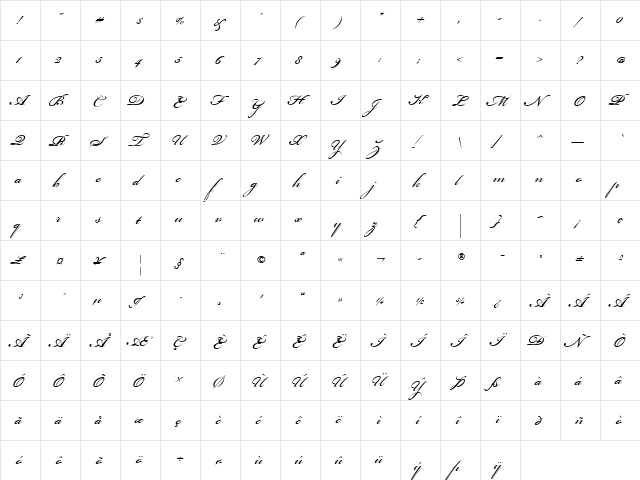
Bickham Script One Regular
| Designer | Gophmann A.L. |
Design Context for Bickham Script One Typeface
Bickham Script One brings a calligraphic fluidity to the page — its connecting strokes and expressive curves give it an unmistakably human quality.
Font Pairing: Combine Bickham Script One with a simple geometric sans for maximum contrast — the tension between flowing curves and clean structure is a classic typographic pairing.
Pro Tip: Use Bickham Script One for short runs of text — names, titles, or taglines. Extended body copy in script faces tires the eye quickly.